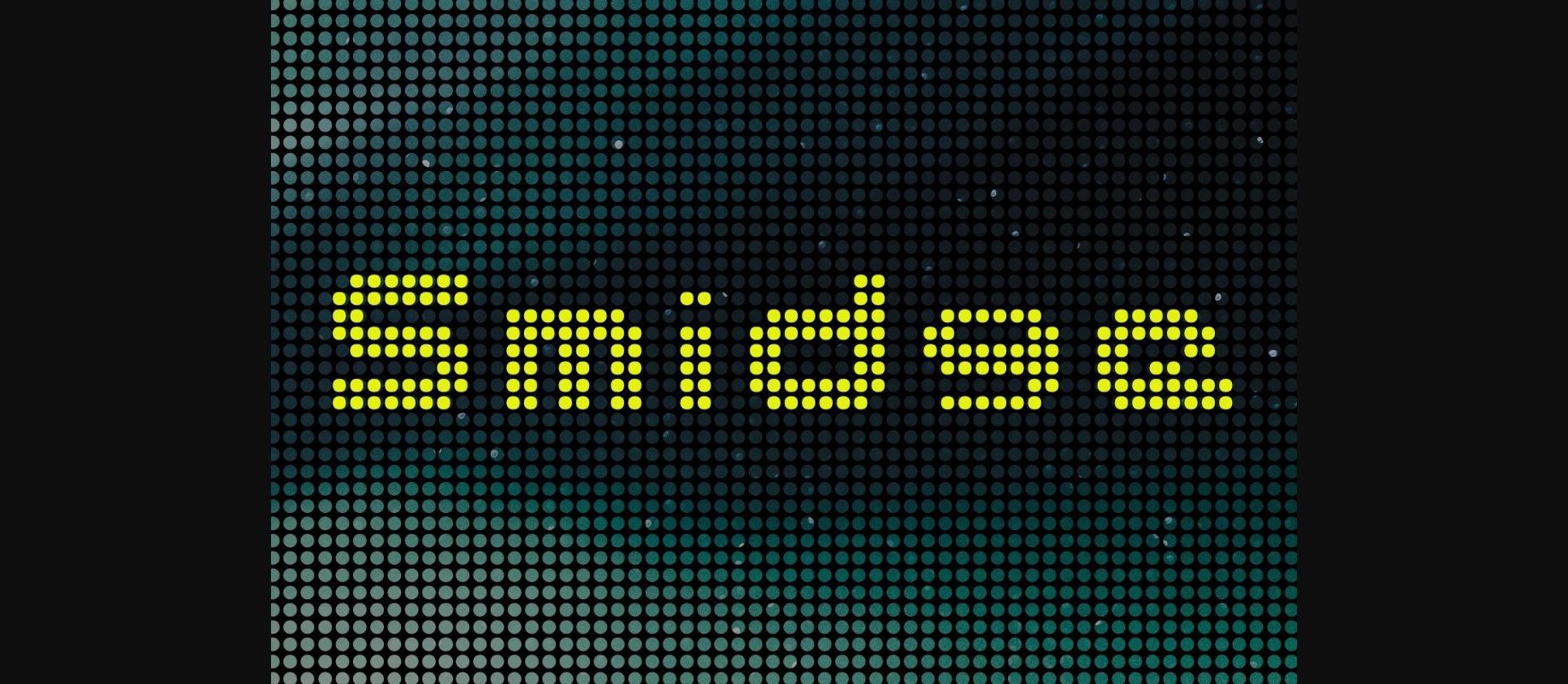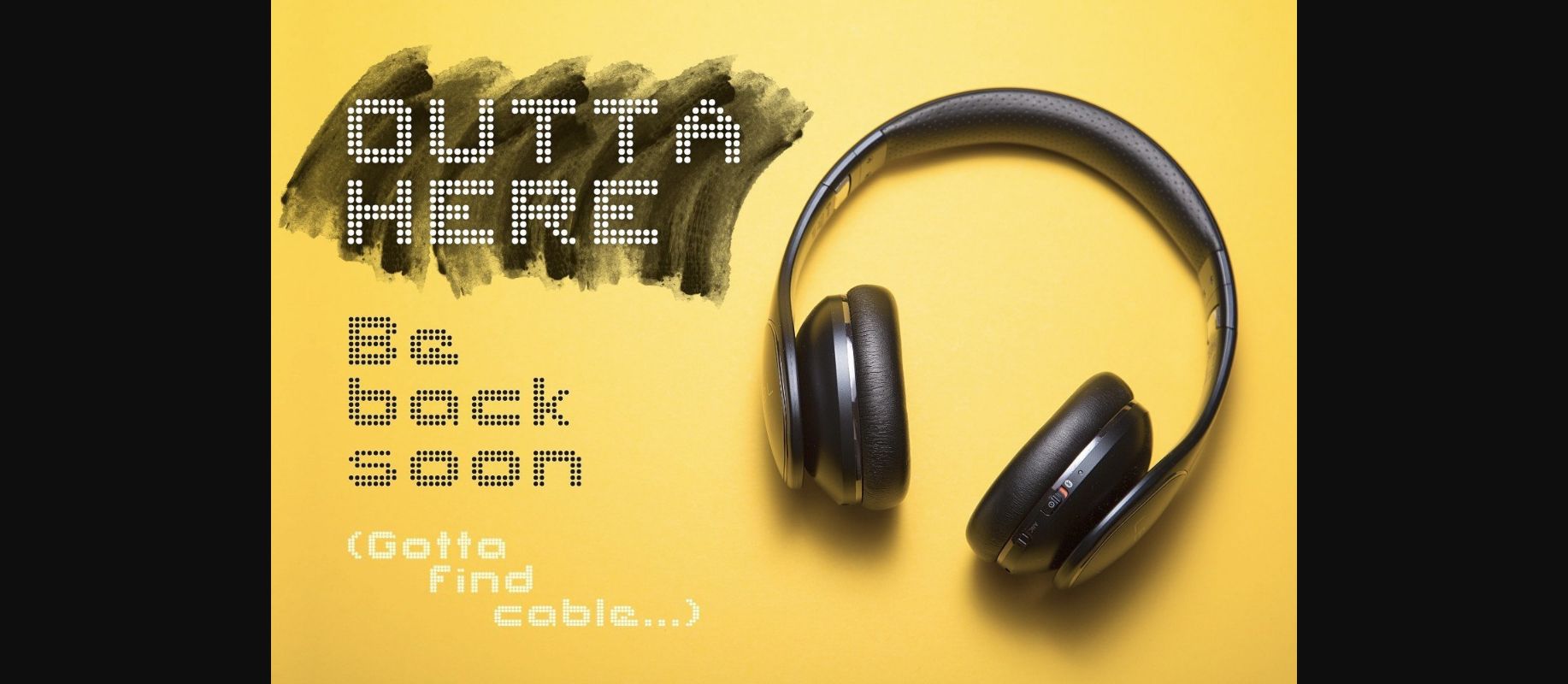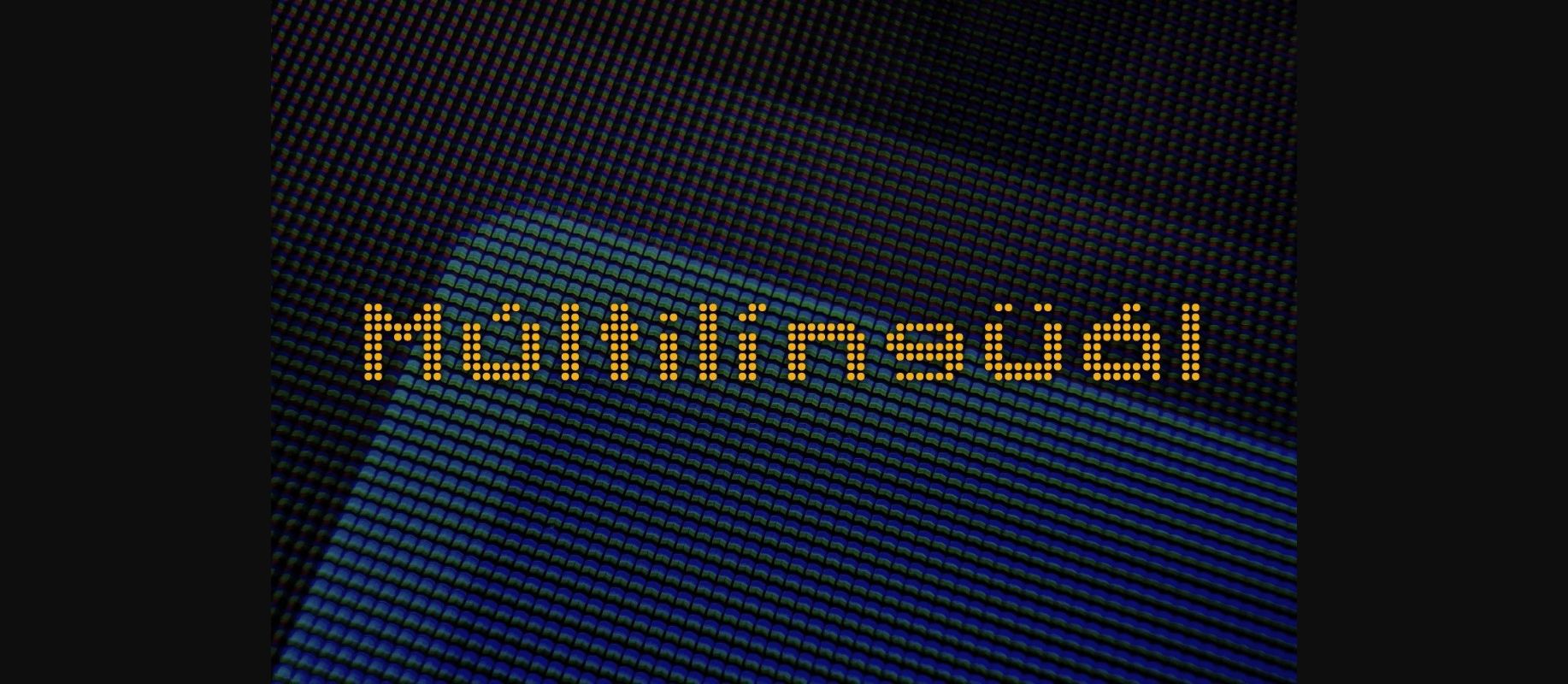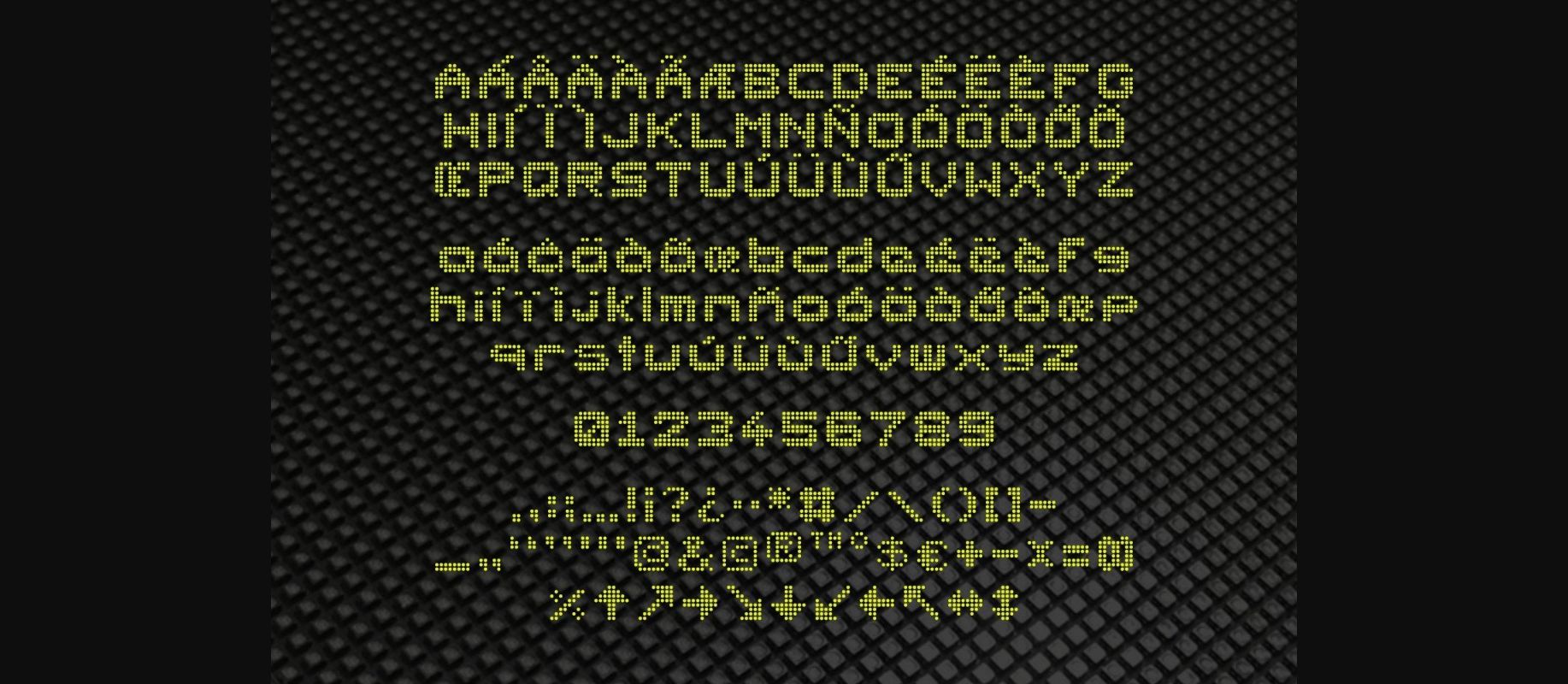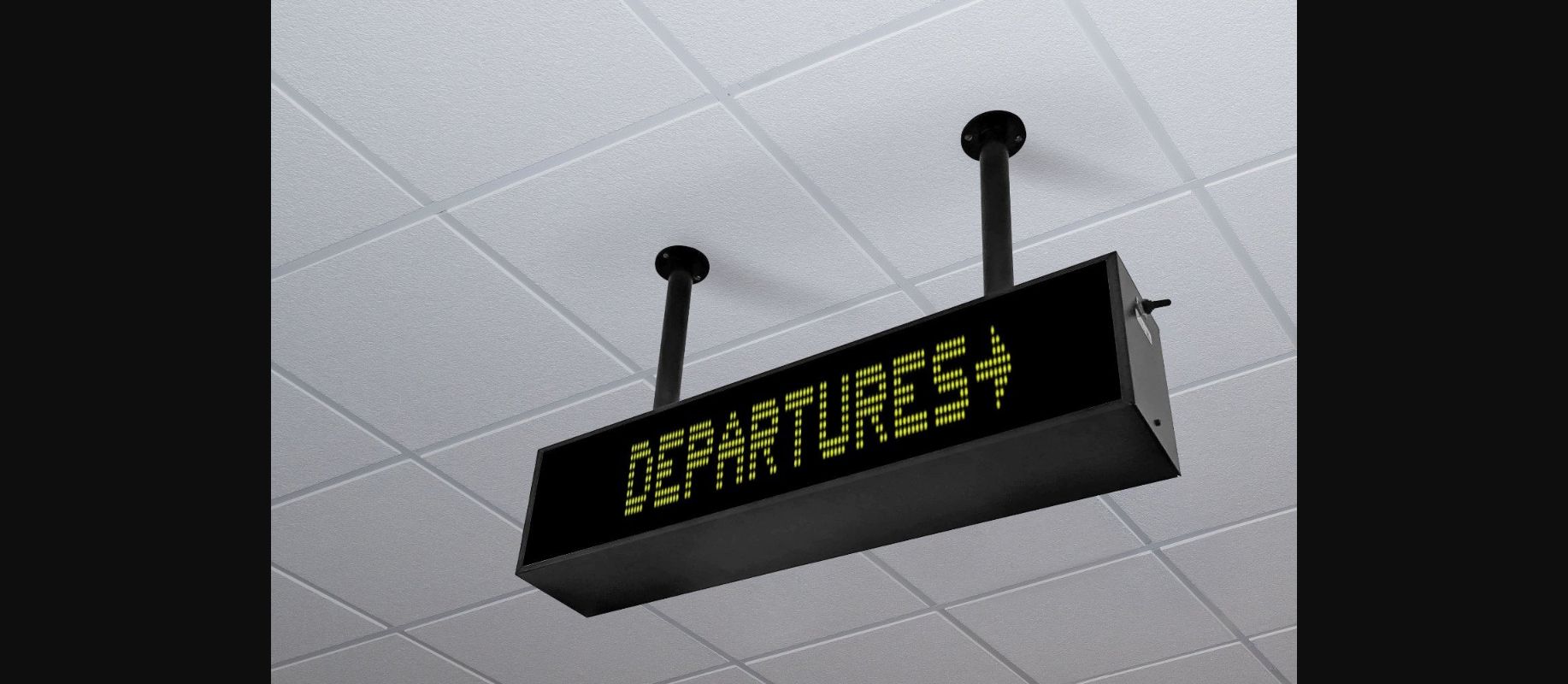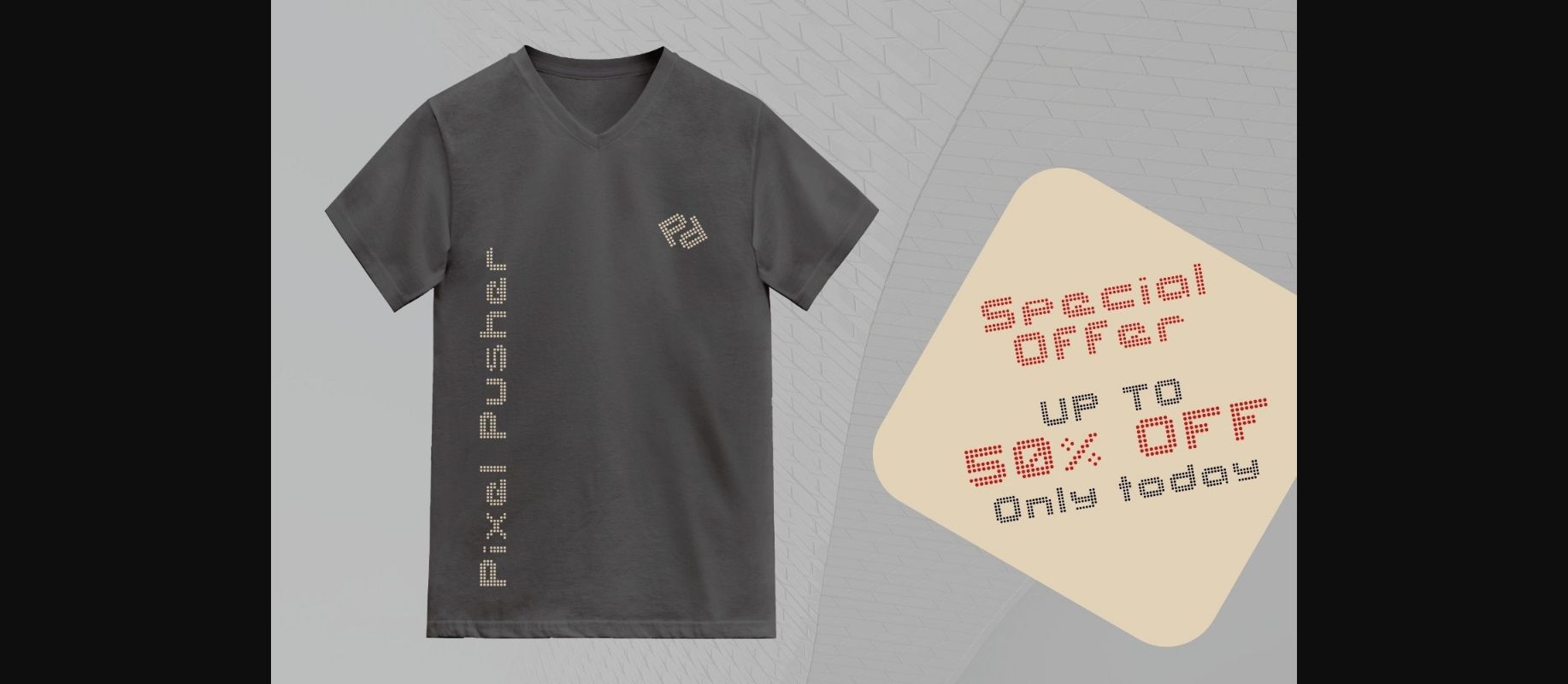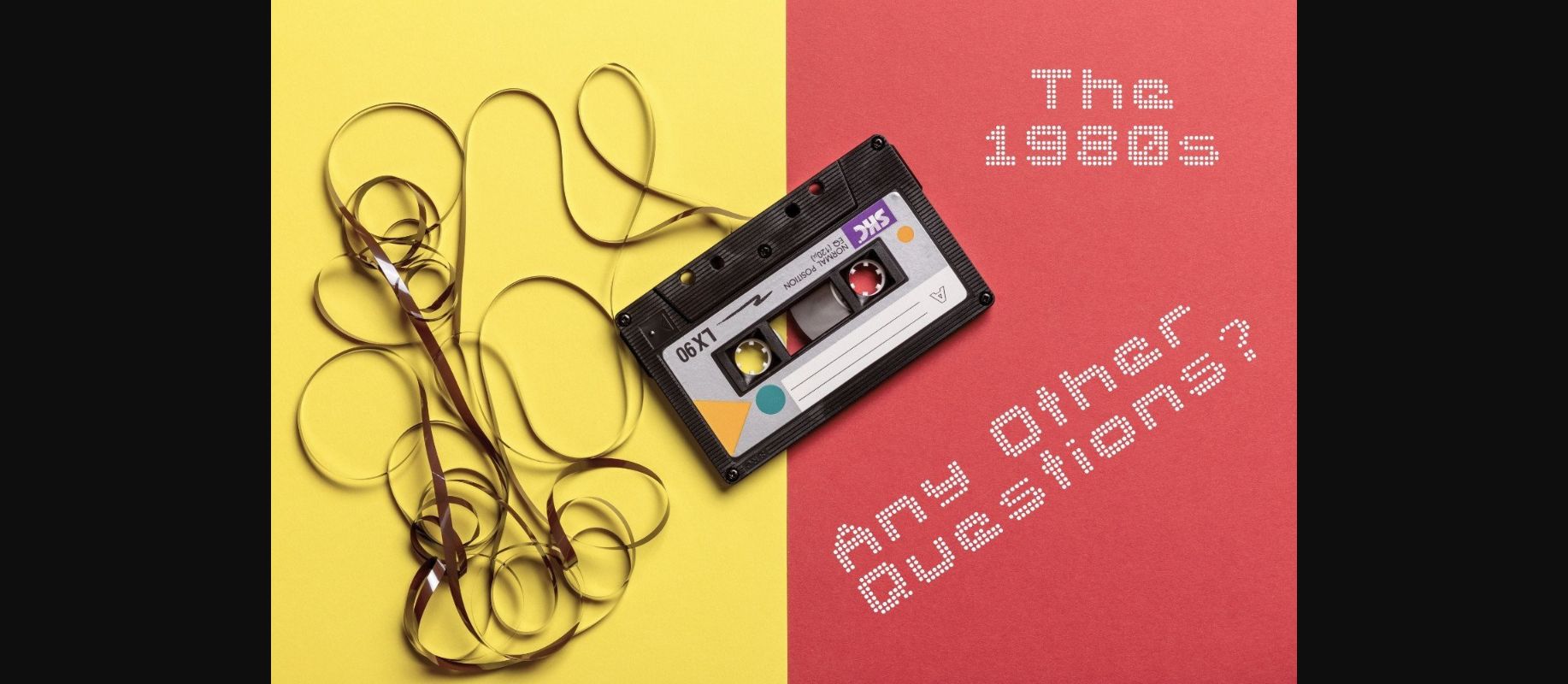
Smidge Font
About Smidge Font
Smidge is a cool-looking, geometric, 8×8-grid-based decorative font reminiscent of LED signs. Its unique retro-yet-modern style is perfect for web design, games, flyers, posters, logos, advertising, t-shirts, package designs, or pretty much anything else that requires a unique touch.